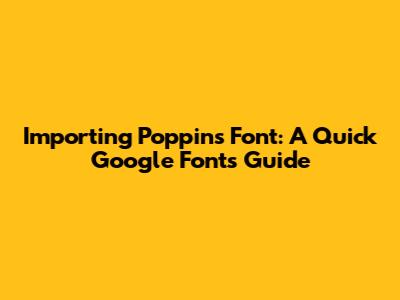
Importing Poppins Font: A Quick Google Fonts Guide
So, you're looking to import the Poppins font from Google Fonts? Awesome! Poppins is a super versatile and popular font that can really elevate your website's or application's design. In this guide, we'll walk you through the different ways you can easily bring Poppins into your project. Whether you're a seasoned developer or just starting, we've got you covered with simple, step-by-step instructions.
Why Choose Poppins?
Before we dive into the how-to, let's quickly touch on why Poppins is such a great choice. Poppins is a geometric sans-serif typeface known for its clean lines and modern feel. Its simplicity makes it highly readable and suitable for a wide range of applications, from headings to body text. Plus, it comes in a variety of weights, giving you plenty of flexibility in your design.
Poppins' versatility shines through in various design contexts. Imagine you're building a sleek, minimalist website. Poppins can provide that clean, uncluttered look you're aiming for. Or perhaps you're working on a mobile app with limited screen space. Its readability ensures a pleasant user experience. It's also a fantastic choice for branding materials, editorial design, and even presentations. The font's balanced letterforms and generous spacing contribute to visual comfort, making it easy on the eyes, even for longer texts. Moreover, Poppins' support for multiple languages makes it a global-friendly option, ensuring your message is conveyed clearly to a diverse audience. With its modern, neutral appearance, Poppins is a reliable choice for designers seeking a font that complements their creative vision without overpowering it.
Designers often favor Poppins because it pairs well with numerous other fonts. Its neutral character allows it to blend harmoniously with more expressive or decorative typefaces, creating a balanced and visually appealing composition. For instance, combining Poppins with a serif font like Playfair Display or Merriweather can add a touch of elegance and sophistication to headings, while maintaining clarity in body text. Alternatively, pairing it with a script font like Pacifico or Dancing Script can bring a playful and friendly vibe to designs. Poppins also works well alongside other sans-serif fonts, such as Montserrat or Lato, for a cohesive and modern look. The key is to experiment with different font pairings to find the combination that best reflects the overall tone and message of your design project. By thoughtfully selecting complementary fonts, designers can leverage Poppins' versatility to create visually engaging and impactful designs.
Another reason Poppins stands out is its performance on the web. It's well-optimized for web use, meaning it loads quickly and doesn't slow down your website. Google Fonts hosts Poppins on its global CDN (Content Delivery Network), ensuring fast delivery to users around the world. This is crucial for maintaining a smooth user experience and keeping your website's bounce rate low. In addition to its speed, Poppins is also highly compatible with various browsers and devices. Whether your visitors are using Chrome, Firefox, Safari, or Edge, they'll see the font as intended. This cross-browser compatibility is essential for ensuring a consistent and professional look across all platforms. Furthermore, Google Fonts provides different font file formats, such as WOFF2, which are optimized for web use and reduce file sizes, further improving loading times. By choosing Poppins from Google Fonts, you're not only getting a visually appealing font but also a technically sound one that enhances your website's performance.
• display=swap: This is a crucial attribute that tells the browser to display a fallback font while Poppins is loading. Once Poppins is loaded, the browser swaps the fallback font with Poppins. This prevents the dreaded "invisible text" issue and improves the user experience.
Using the @import Method
Alternatively, you can use the @import method to include the font in your CSS file. Copy the @import code provided by Google Fonts and paste it at the top of your CSS file:
Explanation:
• @import url(...): This CSS rule imports the stylesheet from the specified URL. In this case, it's importing the Google Fonts stylesheet for Poppins.
Important Note: While the @import method is convenient, it's generally recommended to use the <link> method for better performance. The <link> tag allows the browser to download the font stylesheet in parallel with other resources, while @import can block the rendering of the page until the stylesheet is downloaded.
Applying the Font in Your CSS
Once you've embedded the font using either method, you can apply it to your HTML elements using the font-family property in your CSS:
body {
font-family: 'Poppins', sans-serif;
}
h1, h2, h3 {
font-family: 'Poppins', sans-serif;
font-weight: 700; /* For bold headings */
}
Explanation:
• font-family: 'Poppins', sans-serif;: This sets the font family to Poppins. If Poppins is not available for some reason, the browser will use a generic sans-serif font as a fallback.
• font-weight: 700;: This sets the font weight to 700, which corresponds to the Bold style.
Method 2: Using Google Fonts API with JavaScript
For more advanced control, you can use the Google Fonts API with JavaScript. This method allows you to load fonts dynamically and customize the loading process.
1. Include the Web Font Loader: Add the following script tag to your HTML file:
<script src="https://ajax.googleapis.com/ajax/libs/webfont/1.6.26/webfont.js"></script>
2. Configure the Web Font Loader: Add the following JavaScript code to your HTML file, typically within <script> tags at the end of the <body>:
<script>
WebFont.load({
google: {
families: ['Poppins:400,700']
},
active: function() {
// Font has loaded, do something here
console.log('Poppins font loaded!');
},
inactive: function() {
// Font failed to load, handle the error here
console.error('Poppins font failed to load.');
}
});
</script>
Explanation:
• WebFont.load(...): This function loads the specified fonts using the Web Font Loader.
• google: { families: ['Poppins:400,700'] }: This specifies that you want to load the Poppins font family with weights 400 (Regular) and 700 (Bold).
• active: function() { ... }: This callback function is executed when the font has loaded successfully. You can use this to perform any actions that require the font to be available, such as updating the UI or recalculating layout.
• inactive: function() { ... }: This callback function is executed when the font fails to load. You can use this to handle the error, such as displaying a fallback font or alerting the user.
Method 3: Downloading and Self-Hosting Poppins
If you prefer to have more control over your fonts and avoid relying on external CDNs, you can download Poppins from Google Fonts and host it yourself.
1. Download Poppins: On the Google Fonts page for Poppins, click the "Download family" button in the top right corner. This will download a ZIP file containing the font files.
2. Extract the Font Files: Extract the ZIP file to a directory in your project.
3. Include the Font Files in Your CSS: Use the @font-face rule to define the font family and specify the location of the font files:
@font-face {
font-family: 'Poppins';
src: url('fonts/poppins-regular.woff2') format('woff2'),
url('fonts/poppins-regular.woff') format('woff');
font-weight: 400;
font-style: normal;
}
@font-face {
font-family: 'Poppins';
src: url('fonts/poppins-bold.woff2') format('woff2'),
url('fonts/poppins-bold.woff') format('woff');
font-weight: 700;
font-style: normal;
}
Explanation:
• @font-face: This CSS rule defines a custom font family.
• font-family: 'Poppins';: This sets the name of the font family.
• src: url(...) format(...): This specifies the location of the font files and their formats. It's recommended to provide both WOFF2 and WOFF formats for maximum browser compatibility.
• font-weight: 400; and font-weight: 700;: These set the font weights for the Regular and Bold styles, respectively.
• font-style: normal;: This sets the font style to normal (non-italic).
1. Apply the Font in Your CSS: As before, you can apply the font to your HTML elements using the font-family property in your CSS:
body {
font-family: 'Poppins', sans-serif;
}
h1, h2, h3 {
font-family: 'Poppins', sans-serif;
font-weight: 700; /* For bold headings */
}
Choosing the Right Method
So, which method should you choose? Here's a quick summary:
• Google Fonts Website (<link> method): This is the easiest and most common method. It's great for simple projects where you don't need a lot of customization.
• Google Fonts Website (@import method): This is also easy, but it's generally not recommended due to performance issues.
• Google Fonts API with JavaScript: This method provides more control and flexibility. It's useful for advanced projects where you need to load fonts dynamically or handle loading errors.
• Downloading and Self-Hosting: This method gives you the most control over your fonts. It's suitable for projects where you want to avoid relying on external CDNs or have specific font licensing requirements.
And there you have it, guys! You now know several ways to import the Poppins font from Google Fonts into your projects. Whether you prefer the simplicity of the <link> method, the flexibility of the Google Fonts API, or the control of self-hosting, Poppins is now within your reach. So go ahead, experiment with different styles and weights, and let Poppins bring your designs to life!